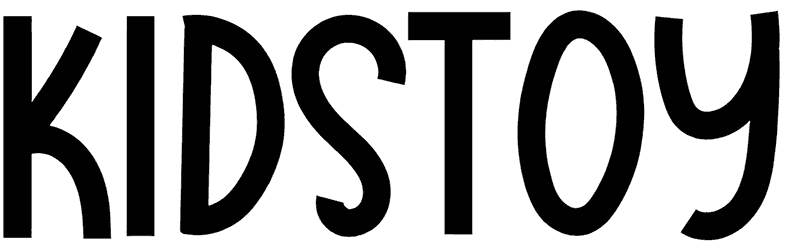
Kidstoy Font
If your designs could use a bit more pizzazz, don’t be afraid to tap into the power of Kidstoy font. This kids font has easily recognizable letters and, at the same time, can add a unique character to your writing.
So if you manage to use it correctly despite the leakage of small letters, you will get magical results in the design of packaging, posters, and book covers that will make your audience smile.